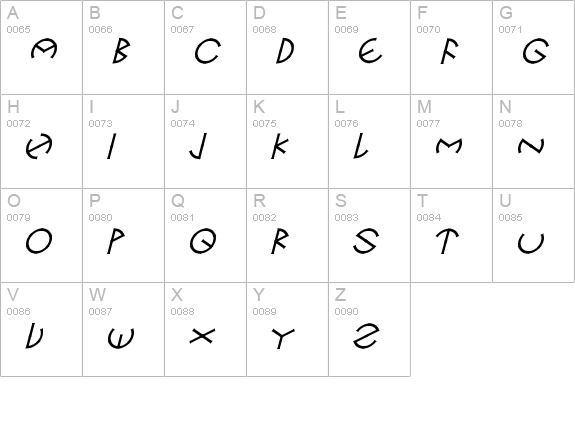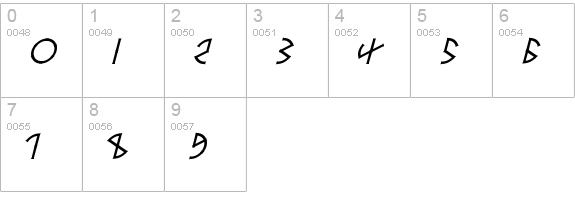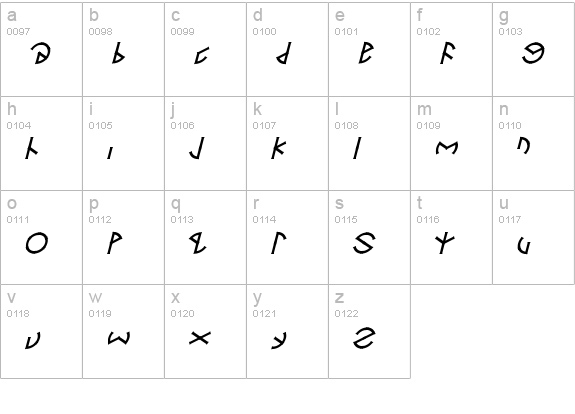
Circle Six font is a modern and stylish typeface that is perfect for adding a touch of sophistication to your designs. Its rounded shapes and smooth curves give it a friendly and approachable feel, making it ideal for a wide range of projects. Whether you are creating a logo, invitation, poster, or website, Circle Six font will bring a contemporary and professional look to your work. Best of all, Circle Six font is completely free to use! You can easily download it at FontsMarket.com and start using it in your projects right away. With its sleek design and versatility, Circle Six font is sure to become a go-to choice for all your design needs. Don't miss out on this amazing font – download it today and elevate your designs to the next level!